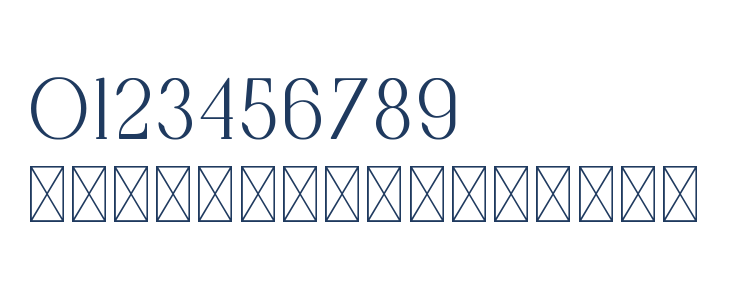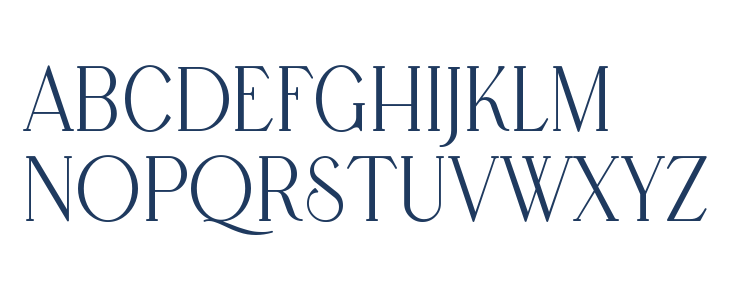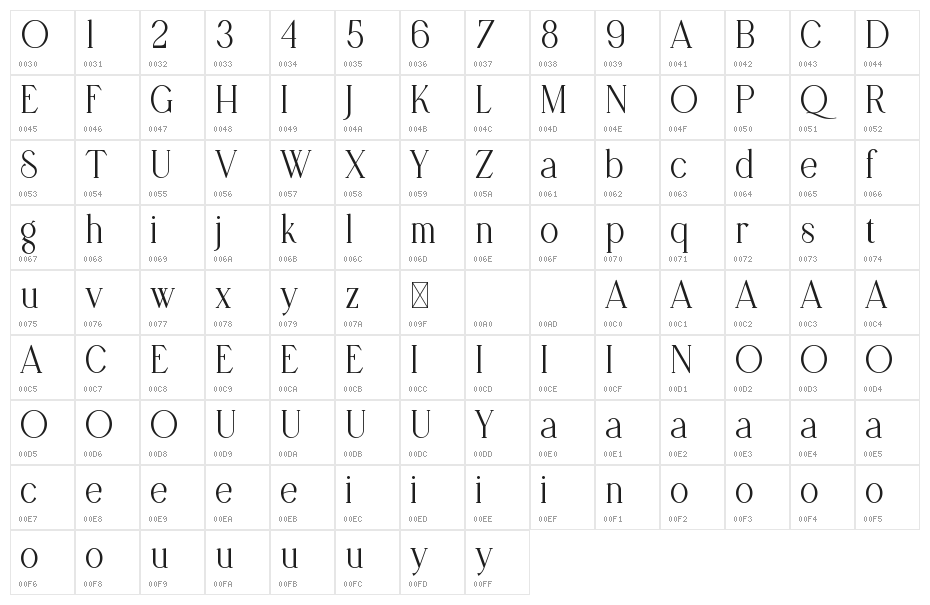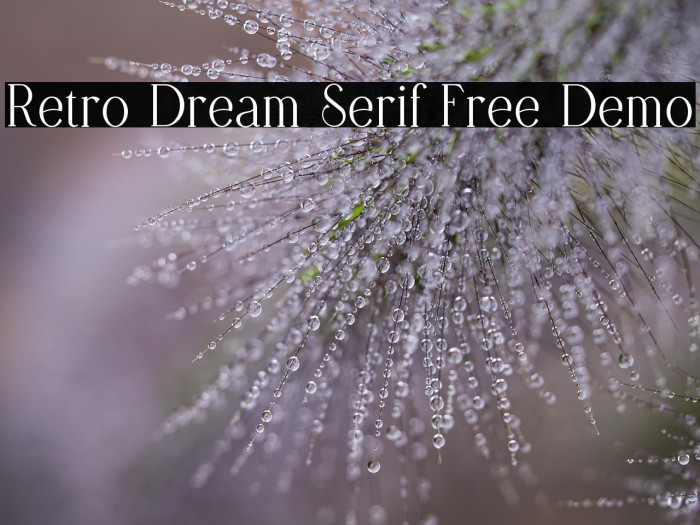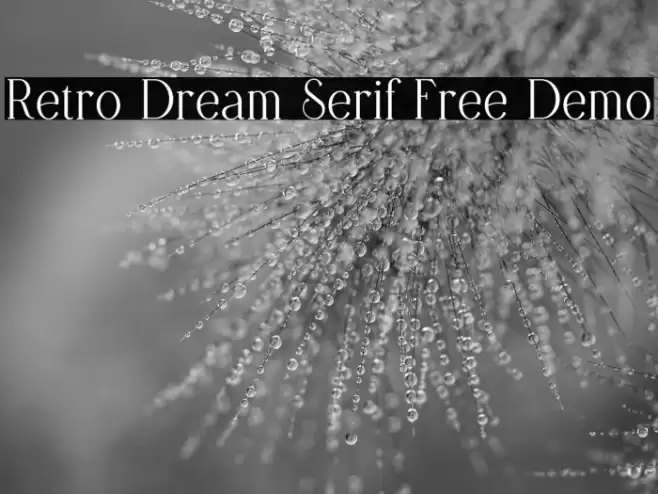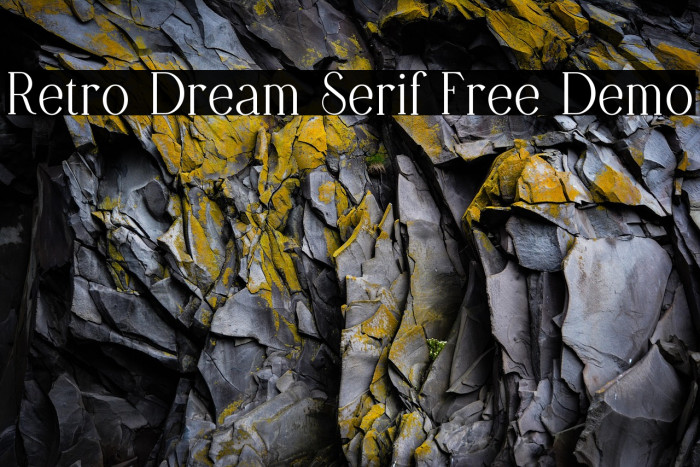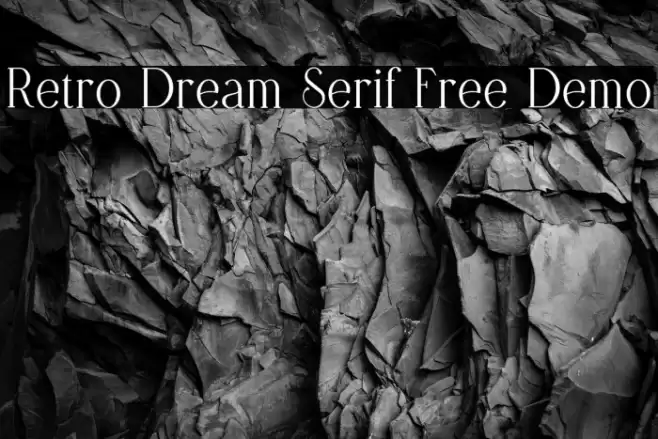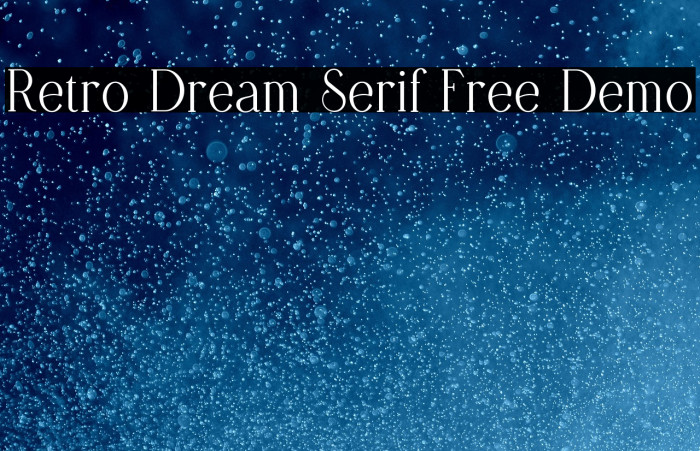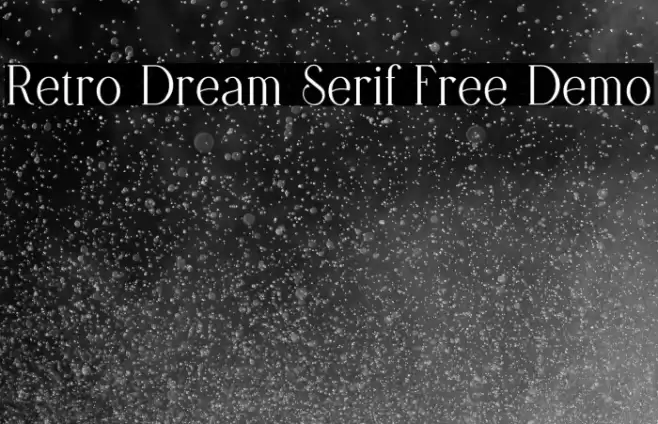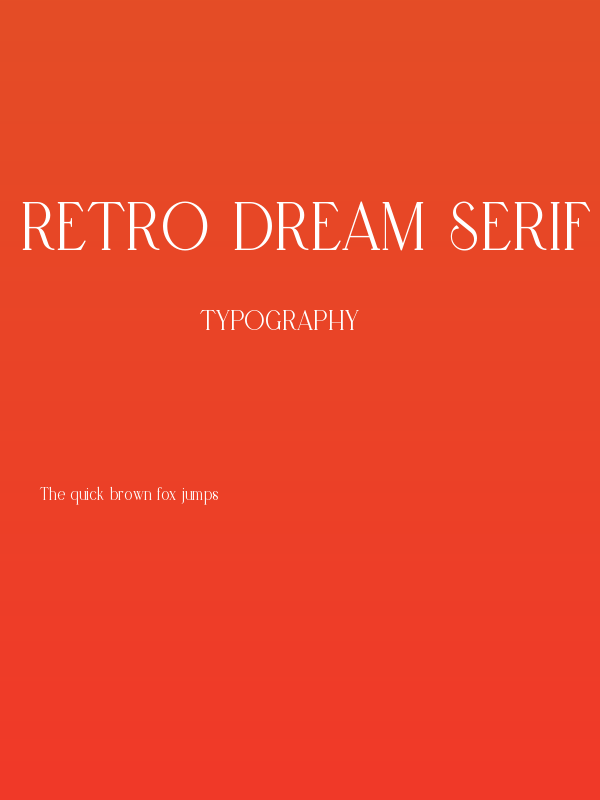
Retro Dream Serif Free Demo Font
Retro Dream Serif Free Demo Description
Elegant serif typeface with high contrast between thick and thin strokes, featuring sharp, refined serifs and distinctive curves, especially noticeable in characters like Q and R. The overall appearance is sophisticated and slightly decorative, with a classic yet modern feel.
| Overall Style | Classic, Modern, Decorative |
| Use Case | Headlines, Logos, Editorial titles |
| Proposed Projects | Editorial design, luxury branding, book covers, invitations, fashion magazines. |